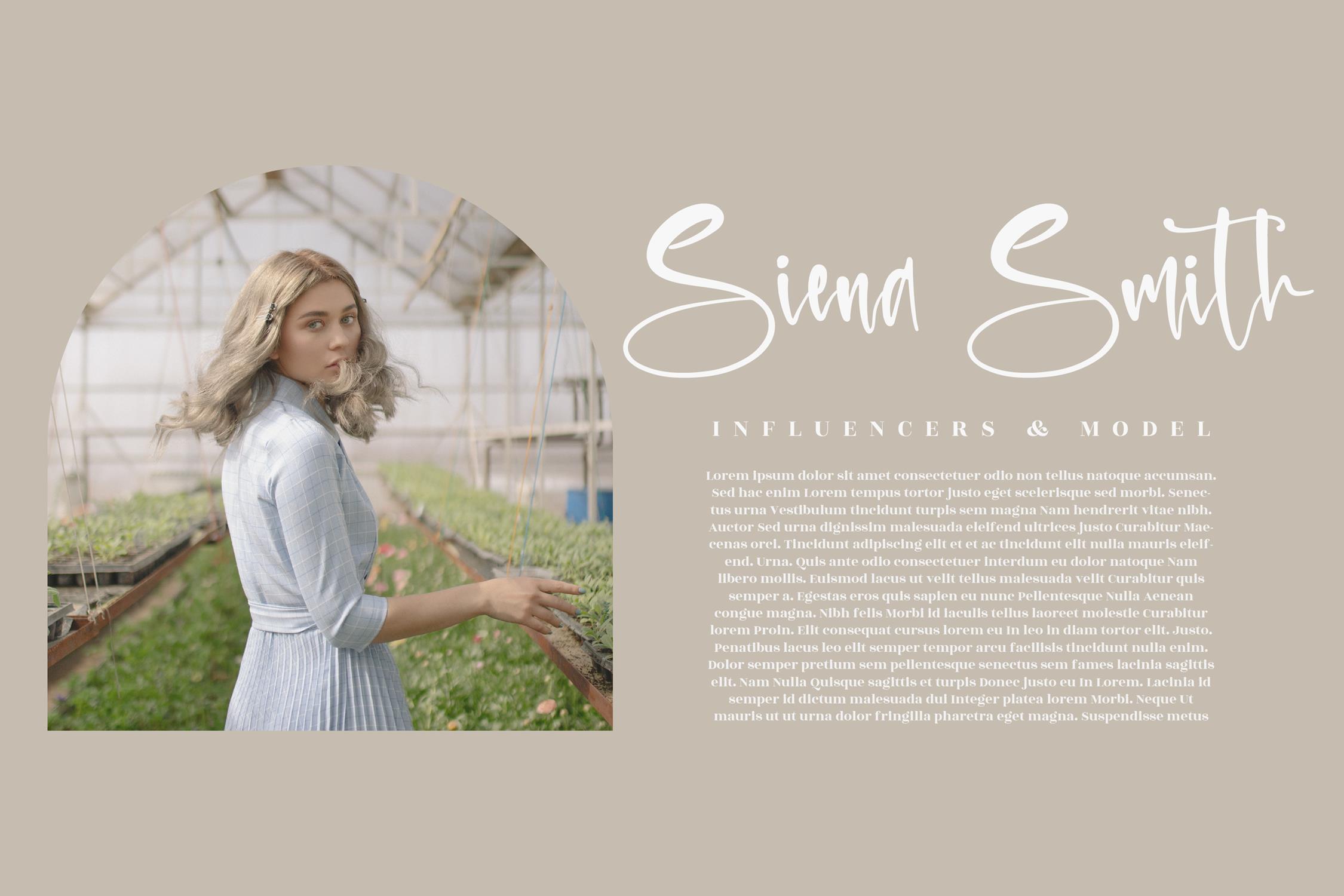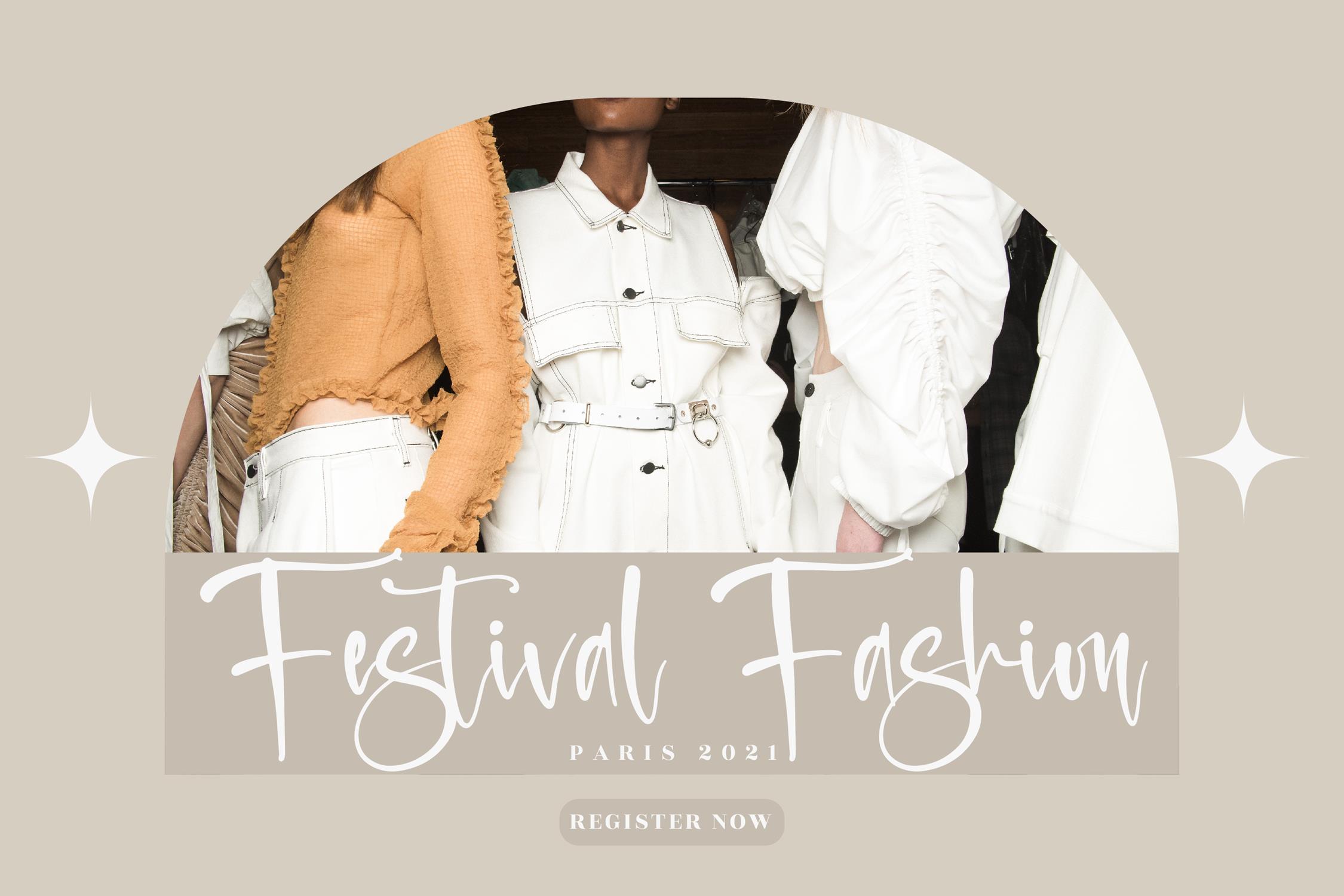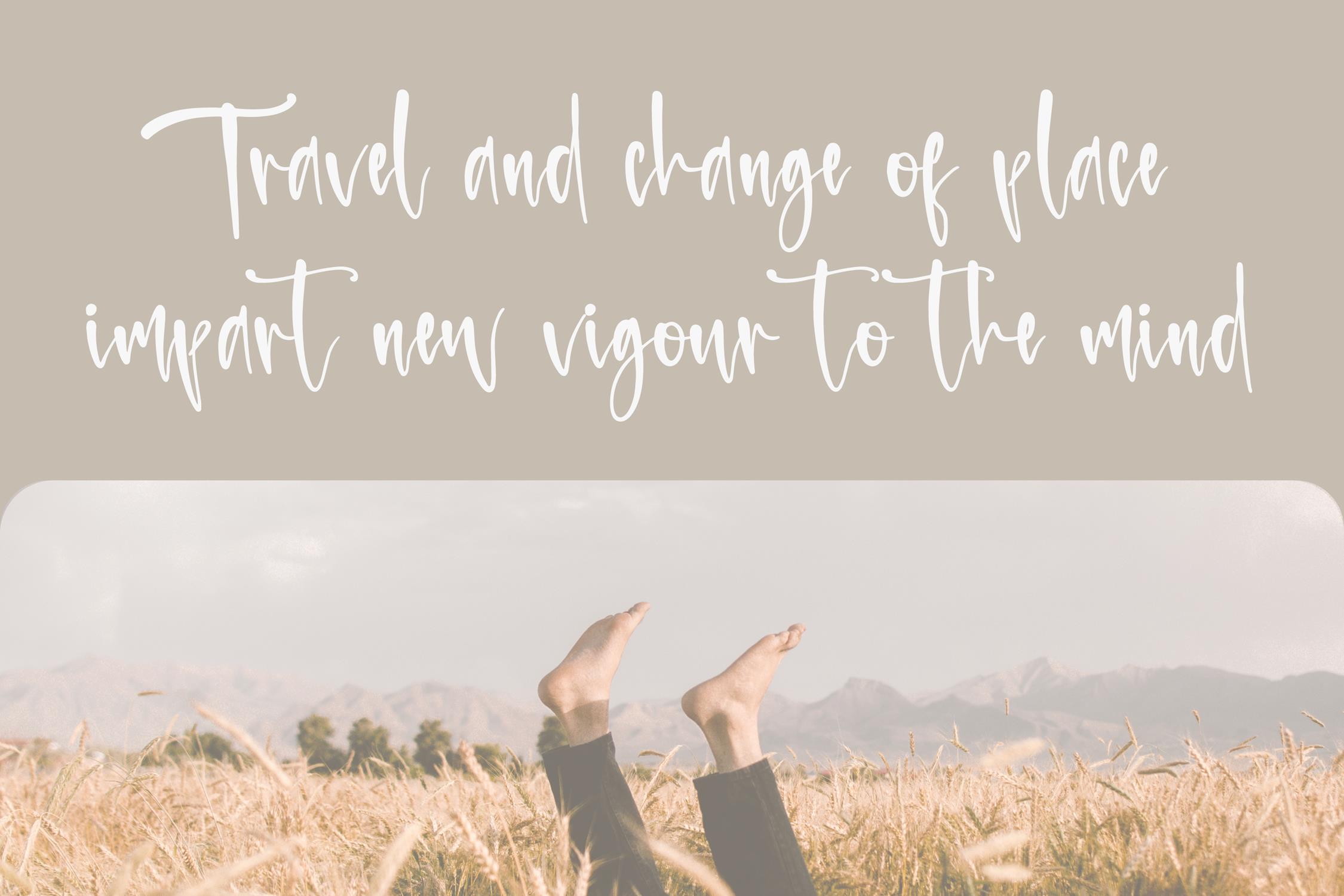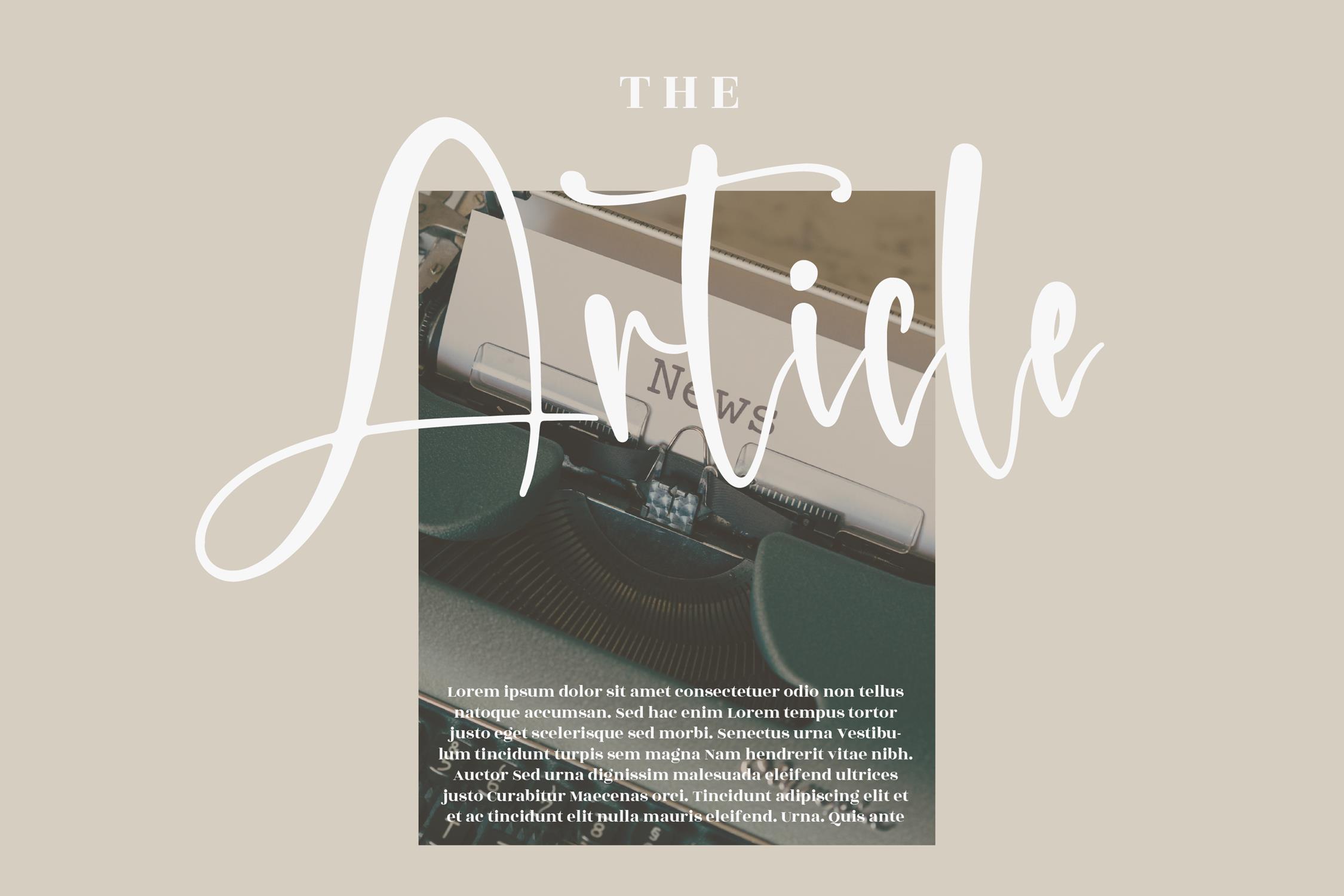
Destination Script Font
Destination – Beautiful Script Font, from Afterpaper Studio, is a beautiful script font, suitable for any projects such as: logos, branding projects, homeware designs, product packaging, mugs, quotes, posters, shopping bags, t-shirts, book covers, name card, invitation cards, greeting cards, label, photography, watermark, special events, and all your other lovely projects that need a beautiful script taste.